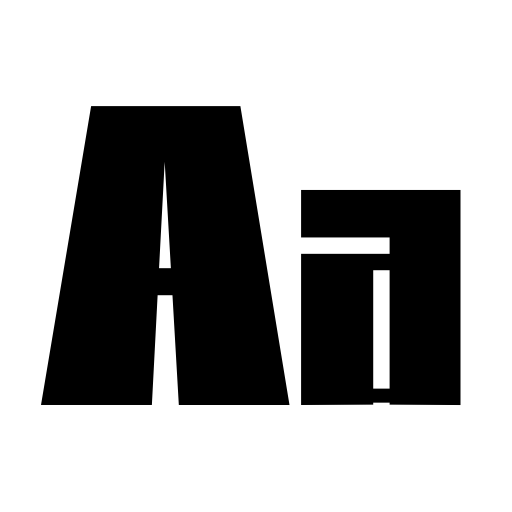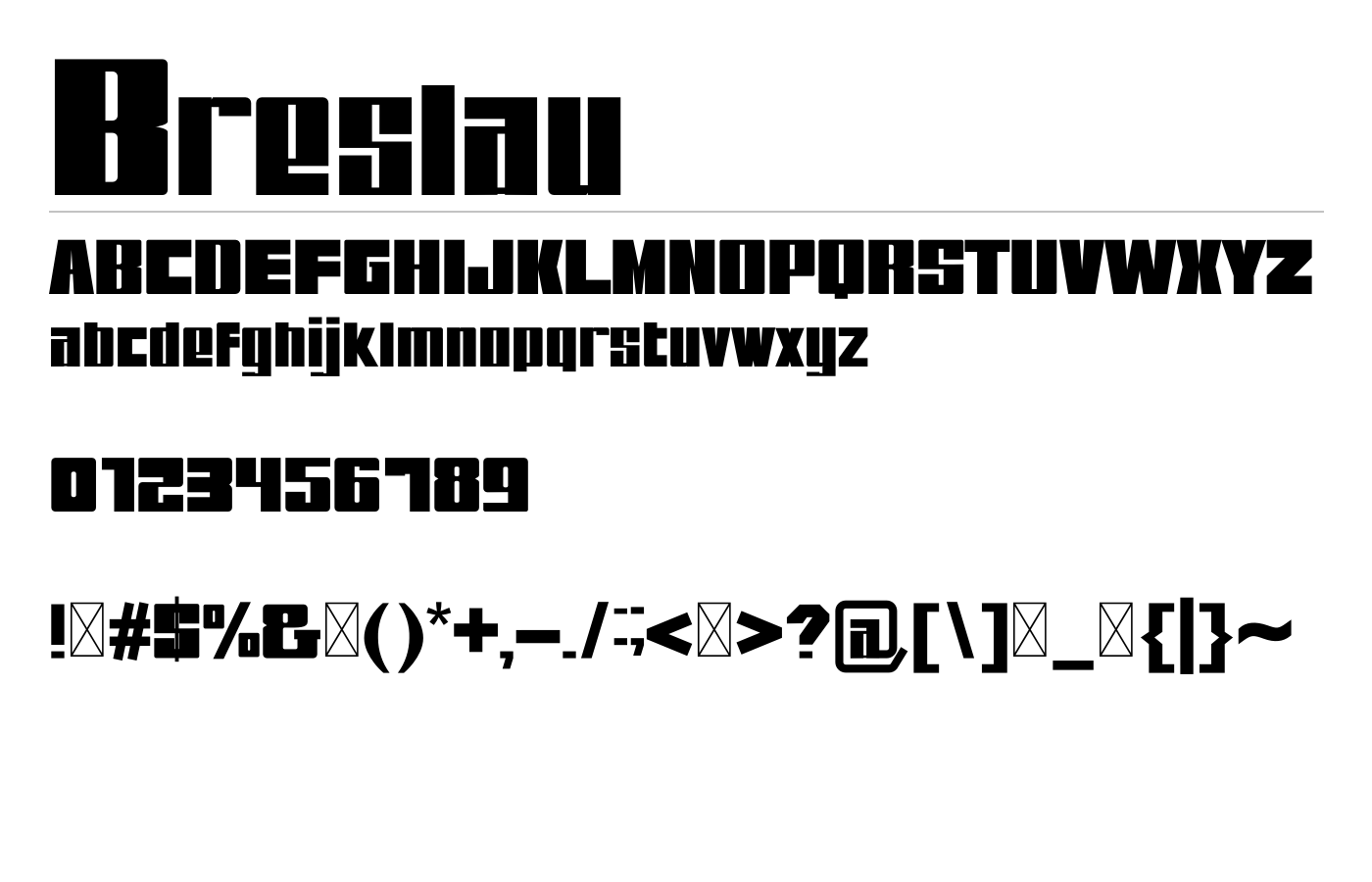
Breslau is a bold, condensed sans serif font with a striking geometric style and high impact presence. Its strong, blocky letterforms with sharp edges and uniform stroke weight give it a modern, industrial feel perfect for headlines, logos, and branding that demand attention and convey strength. This font works well in urban, contemporary designs where a powerful and confident tone is desired.
Breslau Font